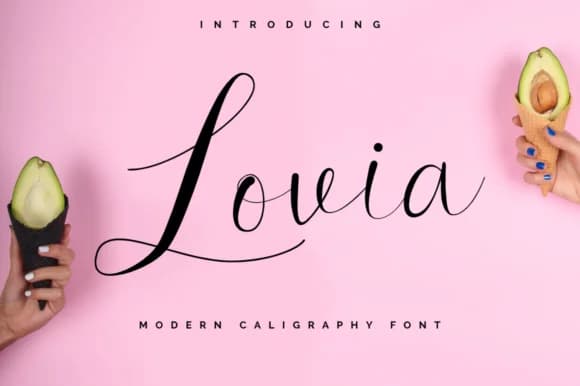
Lovia Script by Earlyfair Studio captures that rare quality where handwritten letterforms retain their organic, personal character while still reading as refined and intentional. The brush strokes flow with natural rhythm across the page, giving you genuine calligraphy without sacrificing legibility or technical polish. This balance makes it work across contexts where a purely refined hand might feel too stiff, or where casual handwriting would undermine credibility and professionalism.
You'll find it equally at home on wedding invitation suites where guests genuinely expect craft and care, or gracing boutique skincare packaging that needs real personality without appearing amateurish or homemade. It suits Etsy product labels beautifully, bringing that artisan touch that actually converts browsers into buyers. DIY craft signage, custom menu cards, and branding for small creative businesses all benefit from this script's warmth and sophistication. Freelance designers often reach for Lovia when a client asks for something personal but polished.
What sets Lovia apart is how it reads as authentically drawn rather than digitally perfected, yet maintains the structural integrity that professional projects demand. Independent designers and small studios, particularly those working in beauty, stationery, and lifestyle categories, will find this font invaluable for work that needs to feel both personal and trustworthy. Grab it on Creative Fabrica.